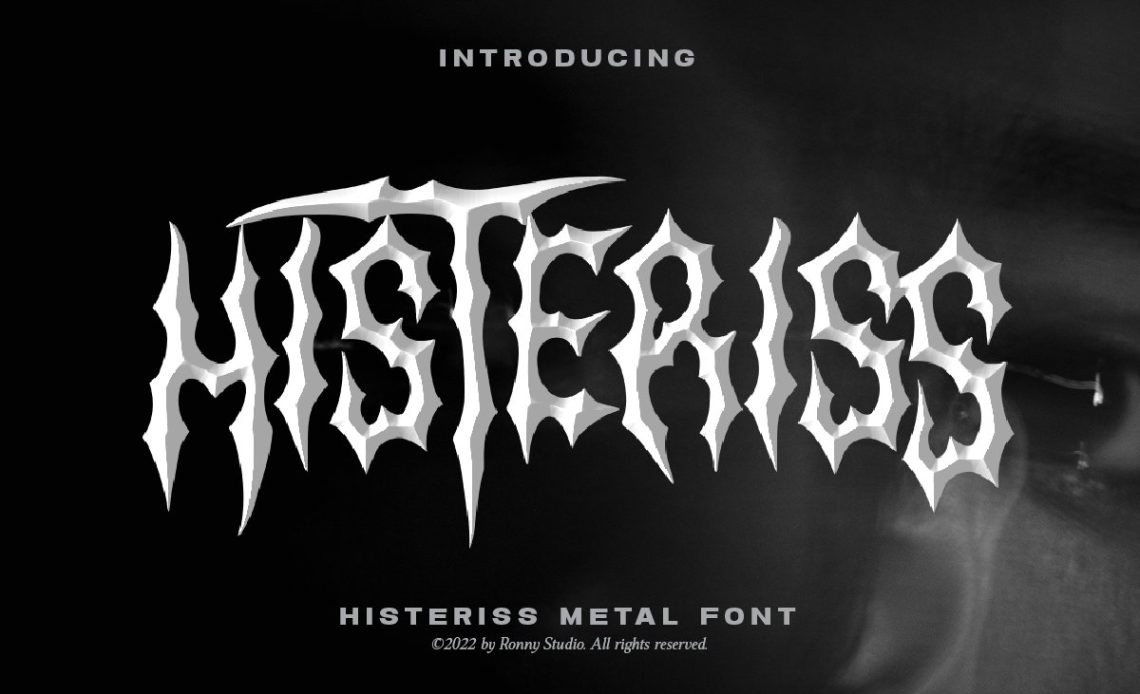
Introducing Histeriss - Metal Font, a versatile blackletter font created by Ronny Studio. Whether you're a member of an Underground band or simply looking to add a touch of fierceness to your designs, this font is the perfect choice for you.
What sets Histeriss - Metal Font apart is its ability to bring words to life with its unique alternate letters. By incorporating these alternate letters in the middle of a word, your logos and designs will exude a cool and edgy vibe that is sure to captivate your audience.
This font comes with a comprehensive character set, including all caps, numbers, and punctuation. Additionally, it features ligatures and alternates, allowing you to experiment and create even more striking compositions. For those in the extreme music sector, Histeriss - Metal Font includes a collection of symbols and signs commonly used in Death- and classic Blackmetal genres, such as pentagram drops, roots, wings, and more.